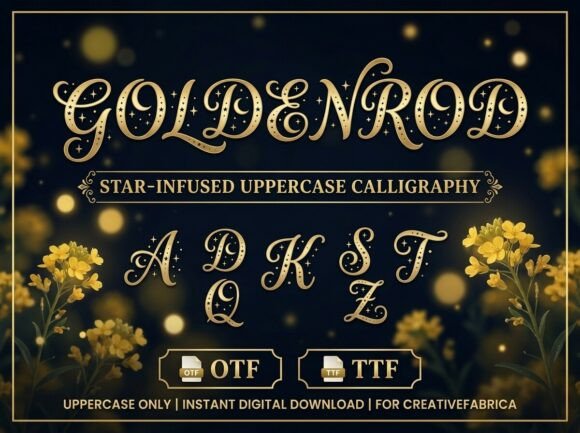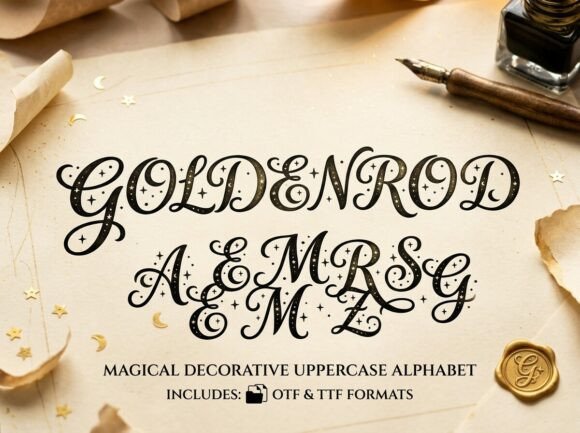
Goldenrod Font: Elevate Your Designs with a Touch of Magic
Are you searching for a font that can transport your designs to a world beyond the ordinary? Look no further than Goldenrod, an enchanting display font that captures the essence of a starlit night. With its mystical and luxurious feel, Goldenrod is the perfect choice for designers and crafters looking to add a touch of magic to their work.
Unleash Your Creativity with Goldenrod
Goldenrod is more than just a font – it’s an experience. Its elegant and refined design makes it an ideal choice for a wide range of creative projects, from mystical branding and fantasy book covers to tarot card designs and luxury event stationery. Whether you’re designing for an astrology brand or a cinematic fairy tale, Goldenrod brings an ethereal, “out-of-this-world” aesthetic to your creative toolkit.
As a designer or crafter, you know how important it is to choose the right font for your project. You want a font that not only looks great but also resonates with your target audience. Goldenrod checks all the boxes – it’s visually stunning, highly versatile, and perfect for a wide range of applications. Here are just a few ways you can use Goldenrod to elevate your designs:
- Mystical branding: Create a magical and mysterious brand identity with Goldenrod. Perfect for astrology, tarot, and spirituality brands.
- Fantasy book covers: Transport your readers to a world of wonder and magic with Goldenrod. Ideal for fantasy, science fiction, and adventure book covers.
- Tarot card designs: Add a touch of mysticism and luxury to your tarot card designs with Goldenrod.
- Luxury event stationery: Make your luxury event stationery shine with Goldenrod. Perfect for weddings, galas, and other high-end events.
What Makes Goldenrod So Special?
So, what sets Goldenrod apart from other fonts? Here are a few key features that make it a standout choice for designers and crafters:
- Ethereal aesthetic: Goldenrod has a truly otherworldly feel that’s perfect for creating magical and mystical designs.
- Luxurious feel: With its elegant and refined design, Goldenrod adds a touch of luxury to any project.
- Highly versatile: Goldenrod can be used for a wide range of applications, from display text to headings and titles.
- Easy to read: Despite its ornate design, Goldenrod is surprisingly easy to read, making it perfect for body text and captions.
Tips for Using Goldenrod in Your Designs
Now that you know more about Goldenrod, here are a few tips for using it in your designs:
- Use it sparingly: Goldenrod is a display font, so use it sparingly to add emphasis and create visual interest.
- Experiment with colors: Goldenrod looks great in a range of colors, from metallic gold and silver to deep blues and purples.
- Pair it with contrasting fonts: Pair Goldenrod with contrasting fonts to create visual interest and add depth to your designs.
- Play with textures: Add texture and interest to your designs by combining Goldenrod with different textures and patterns.
Goldenrod is a truly magical font that’s perfect for designers and crafters looking to add a touch of wonder and luxury to their work. With its ethereal aesthetic, luxurious feel, and high versatility, Goldenrod is the perfect choice for a wide range of creative projects. Whether you’re designing for an astrology brand or a cinematic fairy tale, Goldenrod is sure to transport your designs to a world beyond the ordinary. So why wait? Reach for the stars with Goldenrod and see where your creativity takes you!